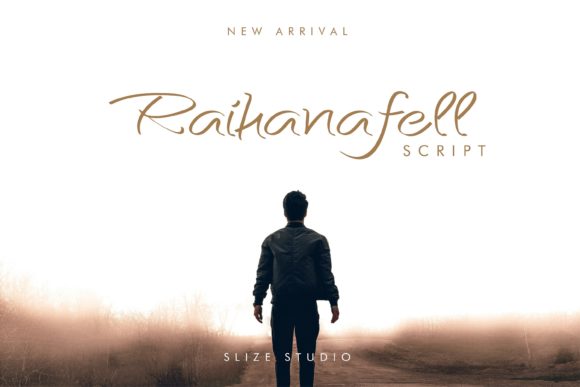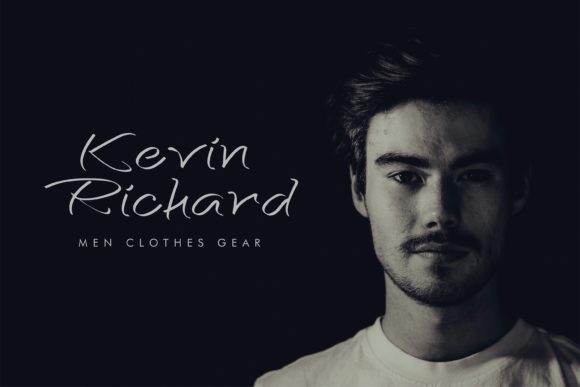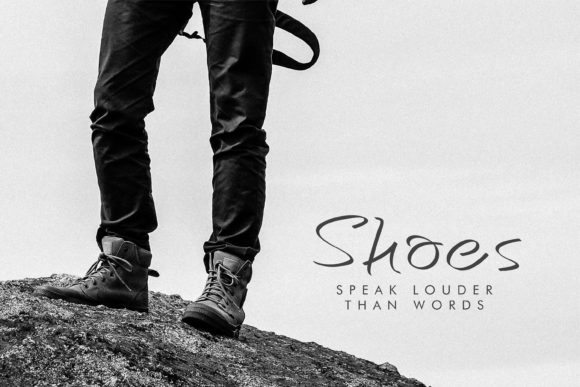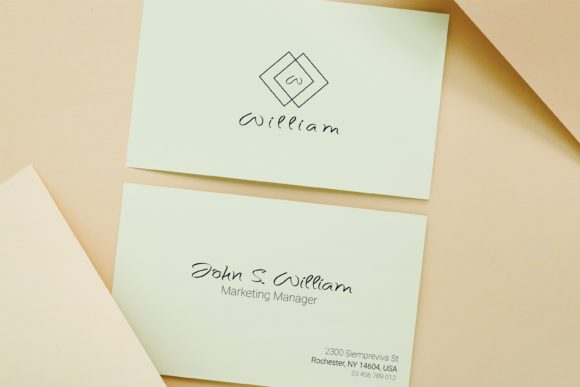
About Raihanafell Font
Make your designs stand out with Raihanafell, a stylish and unique handwritten font. It will look stunning on posters, thank you cards, quotes, greeting cards, logos, business cards and every other design which needs a creative touch.